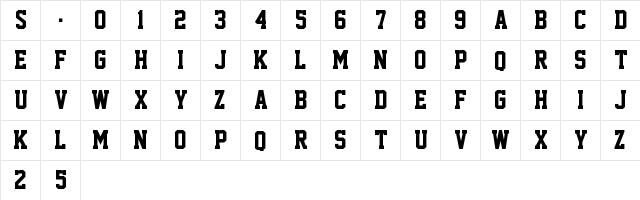
Academic M54 Regular Font Preview
Academic M54 Regular
Academic M54 Regular Font Details
| Foundry | M54 (justme54s) |
| Designer | Mohammed Rahman |
Design Context for Academic M54 Typeface
Academic M54 offers clean, dependable letterforms without strong stylistic allegiance, making it a practical choice for designers who need flexibility.